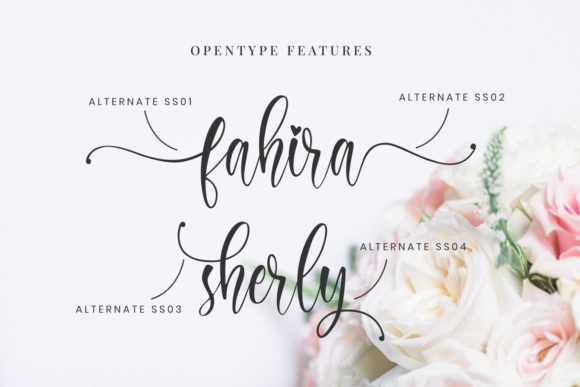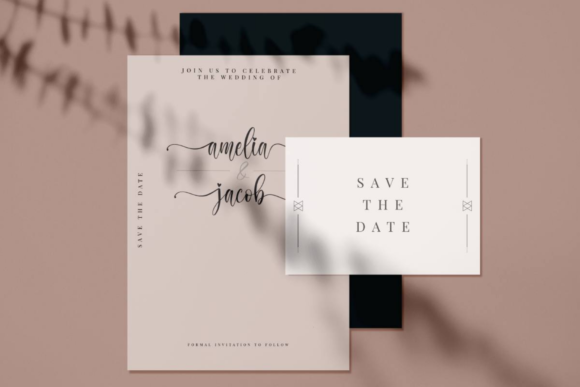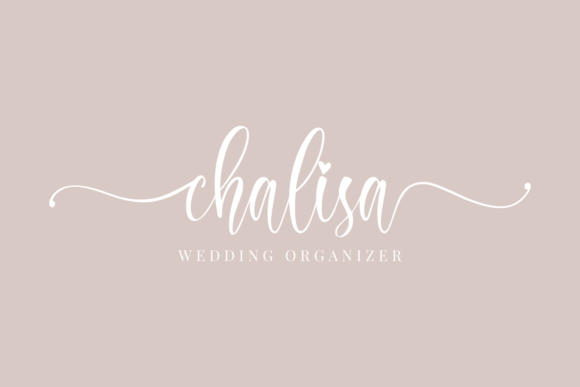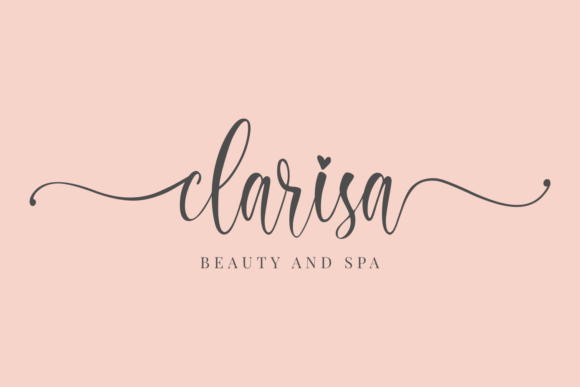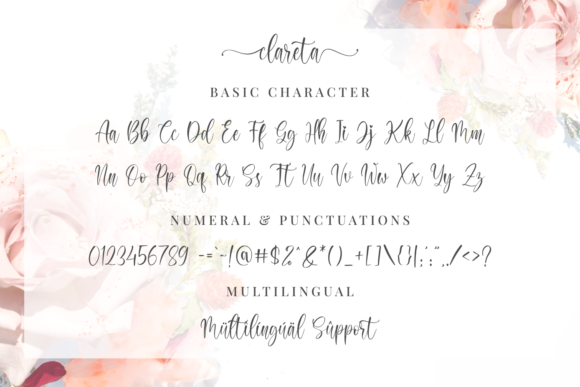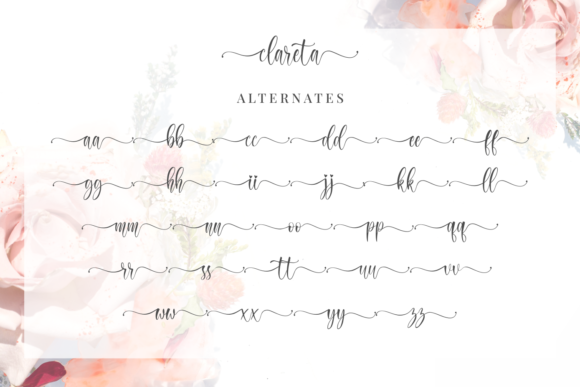
Discover the Elegance of Clareta Font: A Lovely Calligraphy Font for Your Designs
Are you a designer or crafter looking for a font that exudes timeless elegance and authentic calligraphy? Look no further than Clareta Font! This beautiful font is a perfect combination of classic sophistication and romantic flair, making it ideal for adding a touch of luxury to any design. In this article, we’ll explore the features and benefits of Clareta Font, and show you how to make the most of this stunning calligraphy font.
What is Clareta Font?
Clareta Font is a lovely calligraphy font that is designed to evoke a sense of romance and elegance. With its flowing lines and intricate details, this font is perfect for creating beautiful designs that are both classic and sophisticated. Whether you’re working on a wedding invitation, a branding project, or a craft design, Clareta Font is sure to add a touch of luxury and refinement.
Features of Clareta Font
So, what makes Clareta Font so special? Here are just a few of its key features:
- Timeless elegance: Clareta Font has a classic, timeless quality that makes it perfect for designs that need to stand the test of time.
- Authentic calligraphy: This font is designed to mimic the look and feel of authentic calligraphy, giving it a unique and personal touch.
- Romantic flair: Clareta Font has a romantic, whimsical quality that makes it perfect for designs that need to evoke a sense of love and elegance.
- Highly versatile: This font can be used for a wide range of design projects, from wedding invitations to branding and packaging.
Benefits of Using Clareta Font
So, why should you choose Clareta Font for your designs? Here are just a few of the benefits of using this beautiful calligraphy font:
- Adds a touch of luxury: Clareta Font is perfect for designs that need to evoke a sense of luxury and sophistication.
- Creates a romantic atmosphere: This font is ideal for designs that need to create a romantic, whimsical atmosphere.
- Highly readable: Despite its intricate details, Clareta Font is highly readable, making it perfect for designs that need to communicate a message clearly.
How to Use Clareta Font in Your Designs
So, how can you use Clareta Font in your designs? Here are a few ideas to get you started:
- Wedding invitations: Clareta Font is perfect for wedding invitations, adding a touch of romance and elegance to your designs.
- Branding and packaging: This font is ideal for branding and packaging designs that need to evoke a sense of luxury and sophistication.
- Craft designs: Clareta Font is perfect for craft designs, such as handmade cards and gift tags.
- Digital designs: This font can also be used for digital designs, such as social media graphics and blog posts.
| Font Name | Clareta Font |
| Author | R. Studio |
In conclusion, Clareta Font is a beautiful calligraphy font that is perfect for designers and crafters who want to add a touch of elegance and romance to their designs. With its timeless elegance, authentic calligraphy, and romantic flair, this font is sure to become a favorite in your design arsenal. So why not give Clareta Font a try today and see the difference it can make in your designs?